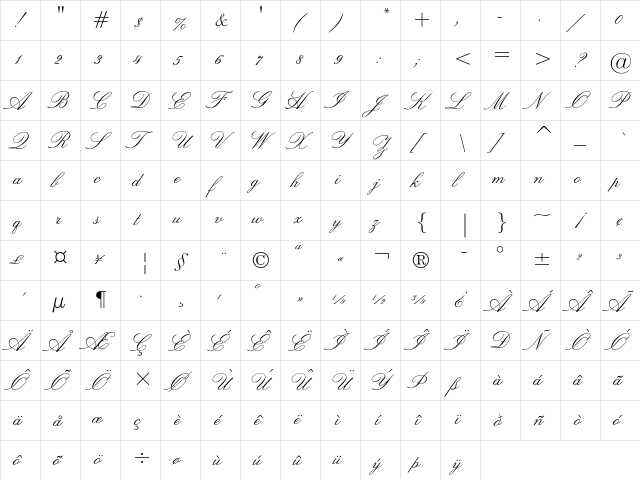
Lucia Regular
Design Context for Lucia Typeface
Lucia is a composed and adaptable typeface that performs quietly and consistently across a wide range of design contexts.